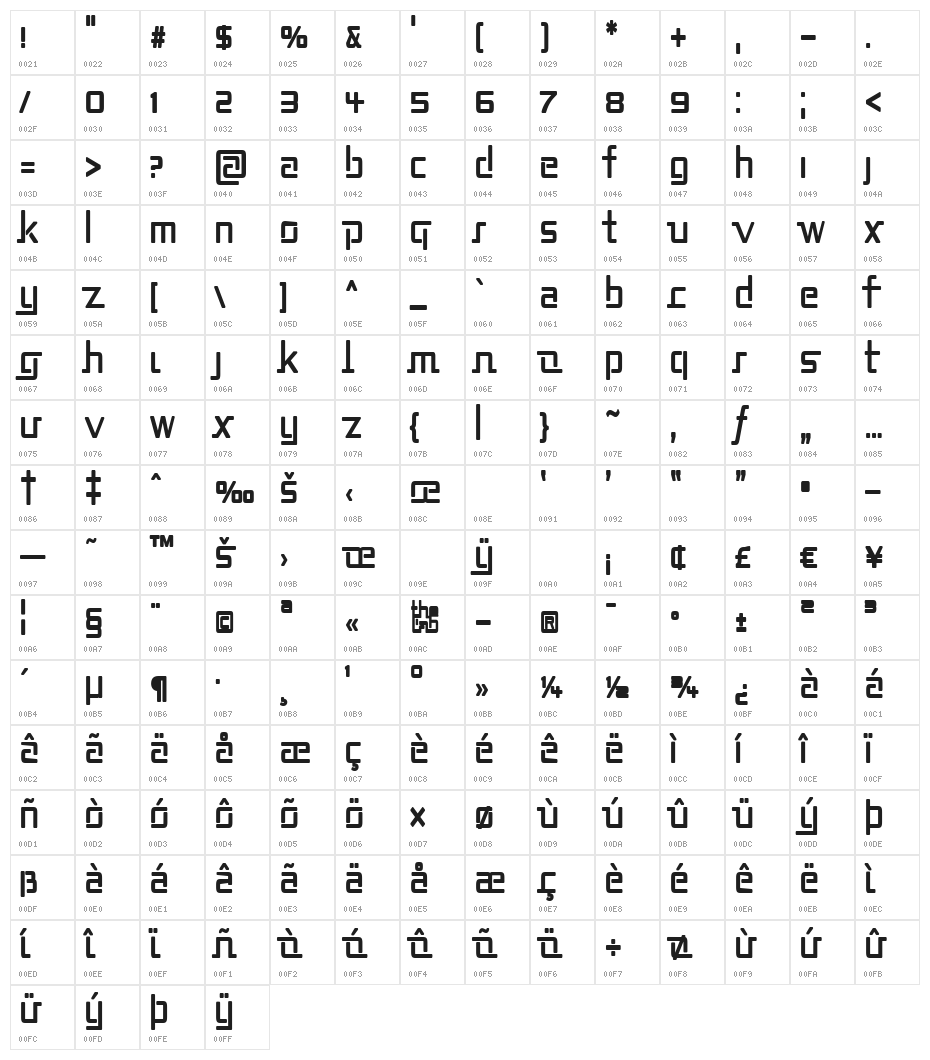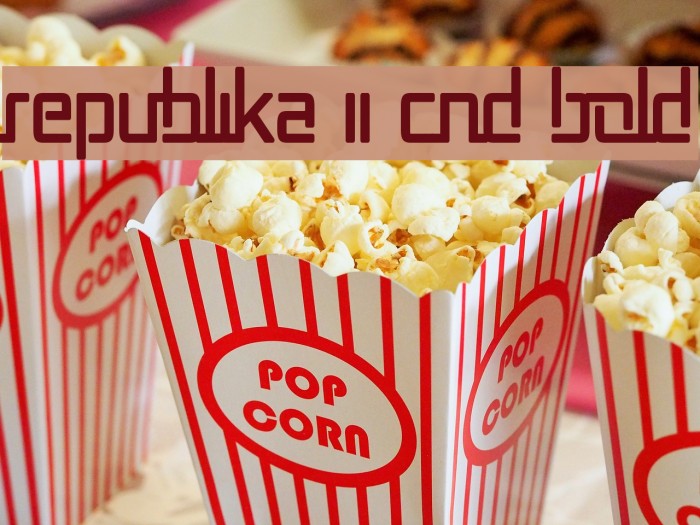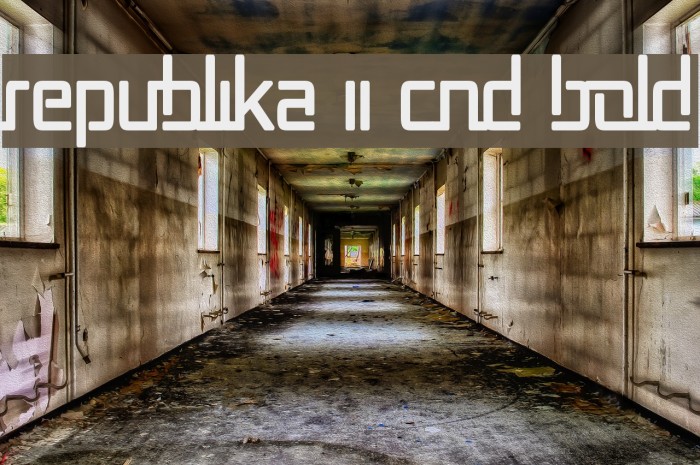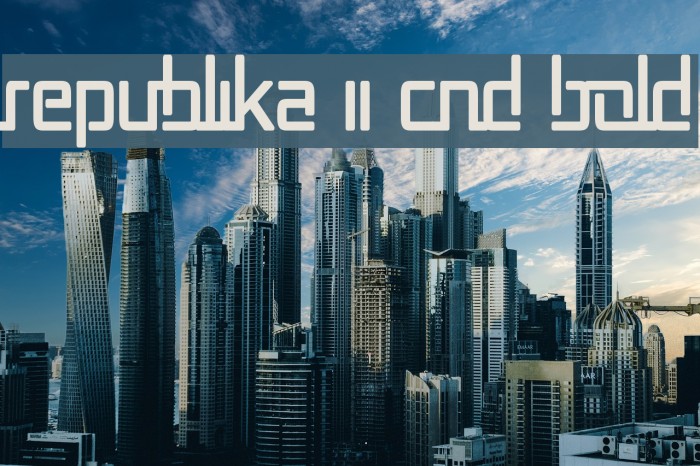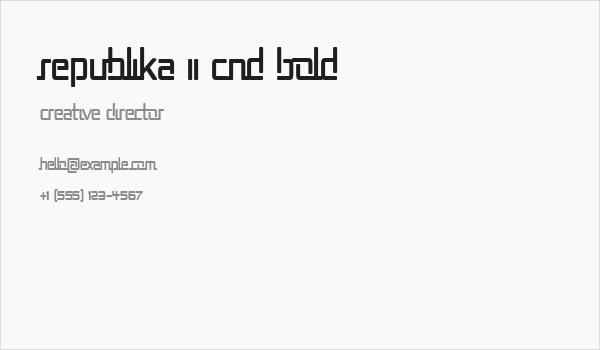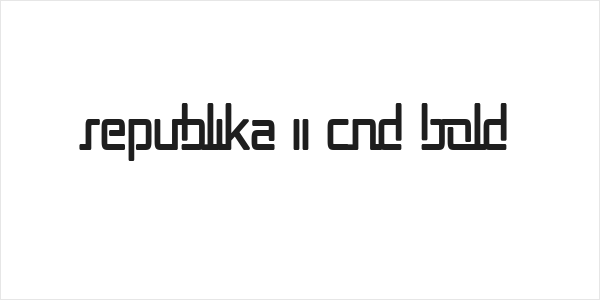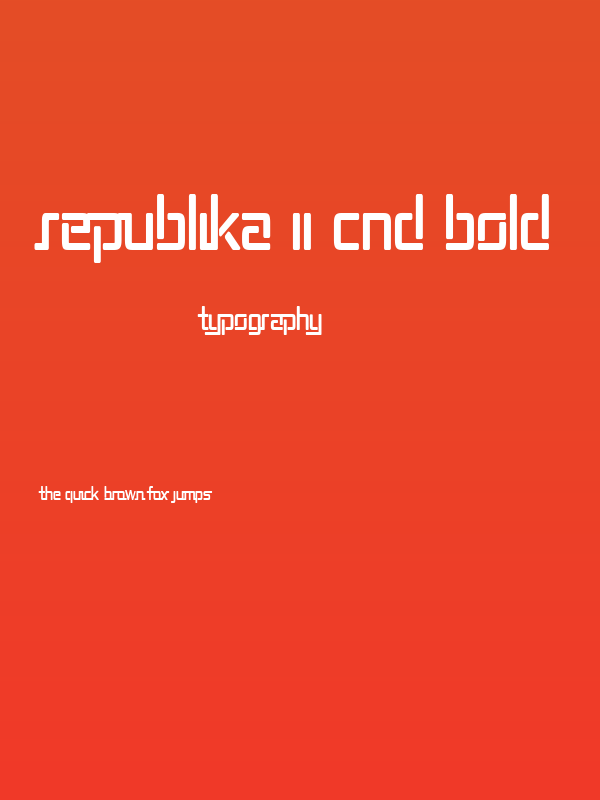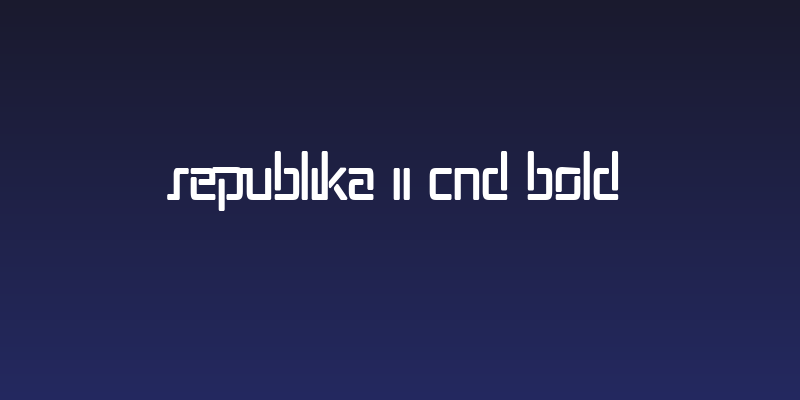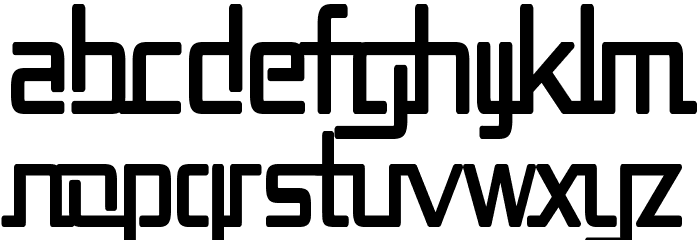
Republika II Cnd Bold Font
Republika II Cnd Bold Description
This font features a bold, geometric design with a distinctly modern and futuristic aesthetic. The characters are constructed with uniform stroke widths, creating a cohesive and structured appearance. The angular and block-like forms give it a strong presence, making it ideal for impactful designs. The uppercase and lowercase letters maintain a consistent style, with rounded corners that soften the overall look. The numerals and special characters are designed to match the boldness and geometric nature of the alphabet, ensuring visual harmony across all elements.
| Proposed Projects | Ideal for technology branding, futuristic posters, video game interfaces, and modern advertising campaigns. |